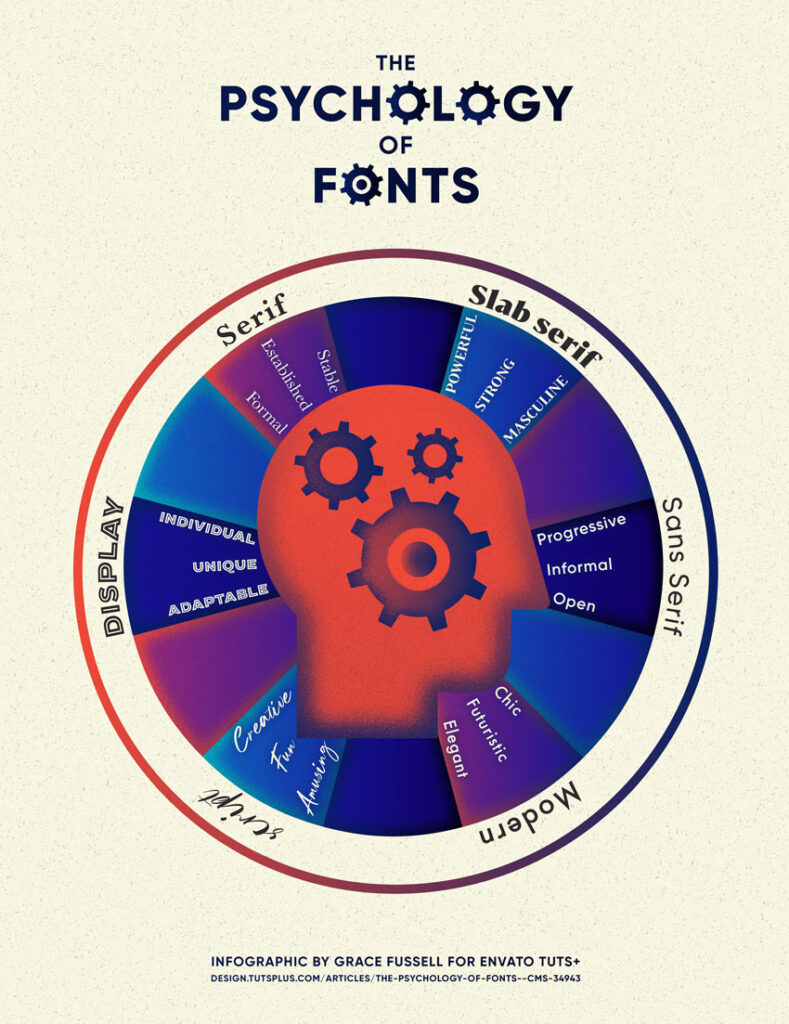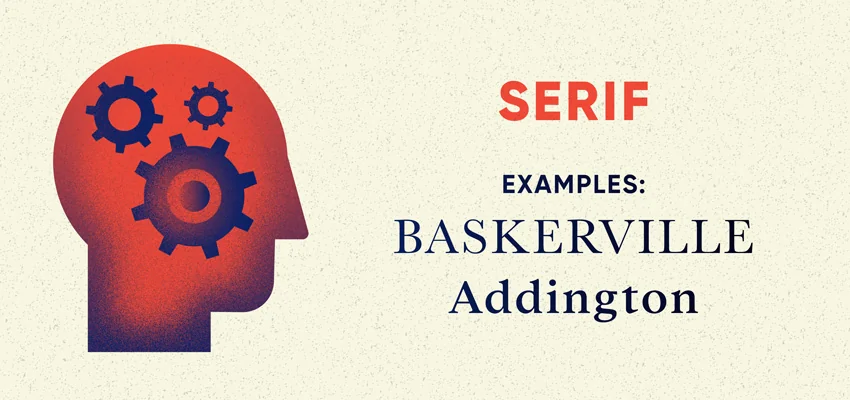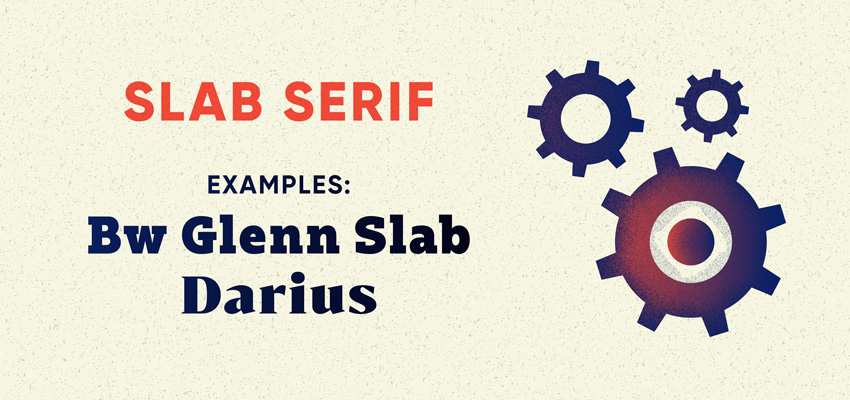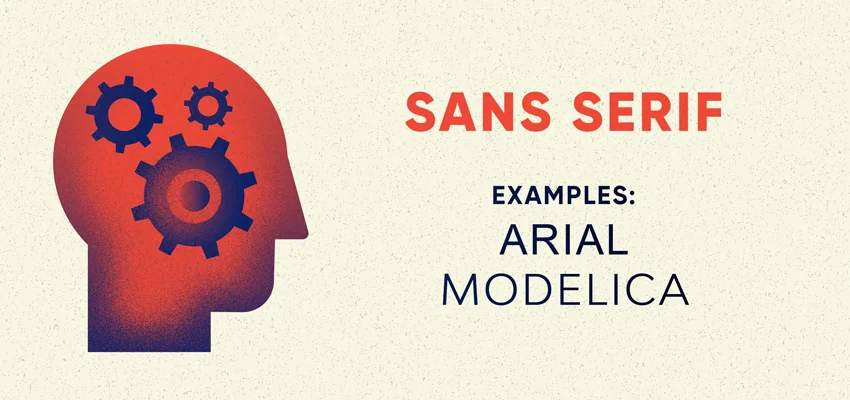
The psychology of fonts: How to choose fonts that evoke emotion
If you want to create designs that connect, here's how to use the psychology of fonts to evoke emotion through your work.
Font psychology
Designers have used powerful fonts to give designs a certain mood and feel for decades, but the power of font psychology to shape individuals’ emotional responses to a brand or logo has only been fully realized in recent years. Fonts that provoke a psychological reaction can be used to make a brand feel more trustworthy, friendly, or aspirational, with designers often turning to emotional fonts to give brand identities a powerful psychological impact.
Here, discover how to apply the psychology of fonts in logos, as well as in branding and design more broadly, using psychologically powerful fonts to shape the reactions of your audience.
From advertising fonts able to convince customers to part with their cash to unique and different fonts that help to give brands a stand-apart identity, this is your ultimate guide to understanding and applying the psychology of fonts.
What is the psychology of fonts?
Images are not simply colors and shapes on a page, or at least not for humans.
Human beings have an innate instinct to anthropomorphize non-human entities, applying human characteristics and emotions to things that are distinctly non-human – such as logos, for example.
Because human beings respond to visual culture in an emotional way, designers can manipulate the psychological responses of their viewers by making informed choices about the features of a design, such as colors and fonts. Applying the psychology of fonts in marketing is starting to become an important field of research and practice in branding and advertising.
Although this was once the preserve of large corporations, now smaller businesses are also recognising the value of applying the psychology of fonts in marketing and brand design. Different fonts have been proven to have astonishing effects on human psychology, with some powerful fonts even able to alter the taste of food or make people angry to the point of social revolution. It’s no surprise, then, that brands are starting to hire designers with a savvy knack for understanding the psychology of fonts and finding a use for emotional fonts.
For designers and businesses, an understanding of typography psychology is key to shaping both how memorable a brand is and how customers perceive it.
infographic of psychology of fonts
Because human beings are more engaged with visual content than written content (a phenomenon termed the Picture Superiority Effect by psychologists), the appearance of the text (i.e. the font) on a brand’s logo, advertising, and other output is more important in determining brand perception and brand memorability than the written content.
Not only is the appearance of text an important consideration for brands, but the appearance of different fonts can also have psychological effects on the viewer. By changing the style of font, choosing a more emotional font or a powerful font, a designer can make the viewer feel and respond differently towards a brand.
For example, a bank that wants to communicate a sense of stability and heritage to its customers might opt for a traditional serif font, while a tech start-up might choose a futuristic sans serif font, to encourage customers to perceive them as innovative and forward-thinking.
A psychological approach can also be taken toward other design elements, such as color. Savvy designers can combine multiple psychological effects by choosing particular fonts and colors, resulting in a psychologically engineered combination of design elements that communicates one or multiple emotional moods.
demo of logo with different fonts
Although the psychology of fonts is most keenly applied in the world of branding, designers working with any form of text should know a little about how font choice affects the mood and perception of viewers.
Typesetting a book? A transitional serif font like Baskerville will help readers feel that the text has more authority and intellect.
Designing a wedding invitation? The right script font can simultaneously communicate romance, fun, and tradition.
Below, discover the six major different font groups, their psychological associations, and examples of how the psychology of fonts is used in brand design.
1. Serifs: Trustworthy fonts
serif fonts
Psychological Associations of Serif Fonts: Stability, Tradition, Intellect, and Formality
Let’s talk about the formal fonts: the serif typefaces. Until the 19th century, books and pamphlets were set in serif type – a style inherited from early Roman and, later, Blackletter typefaces. The first sans serif typeface appeared in print in 1816, but serifs still remained widely popular throughout the late 19th century and into the early 20th century.
Because of this heritage, these formal fonts instantly evoke a sense of establishment and tradition, an association that is carried through into the branding and marketing of law firms, banks, and newspapers. It’s a favorite font style in publishing, with most books still set in serif type, helping to communicate a mood of intellect and authority to readers.
Addington serif font
Addington serif typeface
The psychology of fonts in a serif style stems from their history. Because we are used to seeing serif fonts as symbols of heritage (on historical artifacts and prints), intellect (in books and academic papers), and formality (on fancy invitations and high-end restaurant menus), we perceive serif fonts as trustworthy and dependable. In other words, we know where they’ve been and that they are often the defining, powerful font style of long-established and respected institutions, such as universities and banks.
Aside from colleges and financial institutions, many of which have been using serif typefaces for decades or centuries, other businesses looking to appear equally trustworthy and established can use a serif font to assert this in their branding. Law firms, news channels, and luxury fashion brands often use serif fonts in their branding and communications to capitalize on the dependability association. Serifs are trustworthy fonts without a doubt.
Examples in Logo Design: HSBC, Wikipedia, TIME, CBS News, Gap, Dior, Rolex, Vogue, Tiffany & Co
Fonts to Try: Baskerville, Addington, Garamond, Caslon
2. Slab Serifs: Powerful fonts
slab serif psychology
Psychological Associations of Slab Serif Fonts: Enduring, Strong, Powerful, and Masculine
Slab serif fonts are chunkier, bolder interpretations of the serif-type style. Usually thicker along both the stem and serifs of letterforms, they inherit some of the traits of serif fonts, such as stability and tradition, but are also bolder and more distinctive.
Slab serif fonts lack the delicacy of serif fonts, making them feel a little brash and macho. Electronics companies and car manufacturers often use slab serifs to communicate a sense of power and masculinity in their branding.
Detroit, a slab serif font family
In the wrong context, a slab serif could feel confrontational, but when used in the branding of companies that have a manufacturing focus, they feel strong, capable, and enduring. A slab serif is an assertive and powerful font, telling viewers that this is a practical, hands-on business that also has historical, dependable roots.
Examples in Logo Design: Sony, Honda, Volvo, IBM, Coach
Fonts to Try: Rockwell, Detroit, Darius, BW Glenn Slab
3. Sans Serifs: Friendly fonts
sans serif psychology
Psychological Associations of Sans Serif Fonts: Progressive, Informal, Open, and Friendly
Referring to a wide group of fonts that lack serifs (the small strokes attached to the ends of letterforms on serif fonts), sans serif typefaces were formally invented in the early 19th century but only became popular much later, during the 20th century, when the modernist movement championed a break away from traditional design forms, including serif type styles.
Sans serif fonts are progressive and emotional fonts, historically popular as advertising fonts and cool fonts for posters. These friendly fonts culturally represent a break with tradition, giving these emotional fonts a progressive personality.
In recent decades, these simple and different fonts have defined the branding of a wide number of tech companies and social media sites, helping users to feel that these products are forward-thinking – the opposite of the sometimes stuffy, change-resistant reputation of serif styles.
The psychological association with progression and modernity also extends to brands that want to appear innovative and adventurous, such as Jeep, Land Rover, and National Geographic.
Bergen Text Sans Serif Font
Unencumbered with the fuss of decorative serifs, sans serifs appear as open and friendly fonts, making them a favorite with businesses that want to appear approachable and good value. Budget airlines, logistics companies, and high-street retailers often opt for sans-serif fonts to make their customers feel welcome and comfortable.
Examples in Logo Design: Nike, Apple, Facebook, Microsoft, Dropbox, Spotify, FedEx, National Geographic
Fonts to Try: Arial, Modelica, Open Sans
4. Modern Sans Serifs: Chic fonts
modern serif psychology
Psychological Associations of Modern Sans Serif Fonts: Chic, Futuristic, and Elegant
A sub-family of sans serif fonts, modern sans serifs are sans serif fonts in the tradition of early- to mid-20th-century modernist type styles. Helvetica, Futura, and Avenir are some of the oldest and best-known modern fonts, but the popularity of the style has endured, with a huge range of contemporary geometric sans serifs to choose from.
These chic fonts were often used as advertising fonts and associated with the boom in modernist design during the 1950s. They’re a popular choice amongst design-focused businesses and brands, such as architecture practices, furniture retailers, and fashion brands. In fashion in particular, a clear split down the line emerges between brands who opt for the lofty, luxurious elegance of serif fonts, such as Dior and Valentino, and those who prefer the chic functionality of sans serifs, including Chanel and Calvin Klein. The latter group, it seems, would rather appear more futuristic and minimalist in both brand and business.
George Round, a rounded geometric sans serif
George Round, a rounded geometric sans-serif
Geometric, elegant fonts often also feature rounded letterforms, giving them an open, functional appearance. These chic fonts can be exceptionally rounded, such as George Round, giving the viewer a sense of playfulness and naivety and making them a popular choice for children’s brands, as well as travel and entertainment brands targeting the older millennial market.
Examples in Logo Design: Chanel, Celine, Calvin Klein, Burberry, Netflix, Google, Airbnb
Fonts to try: Futura, George Round, Okana
5. Scripts: Fun fonts
script psychology
Psychological Associations of Script Fonts: Creative, Amusing, Fun, Childlike, and Romantic
Script and fun handwriting fonts can lean towards formality or naivety, depending on the style and context. That’s the beauty of typography psychology. Calligraphy fonts, inspired by the traditional method of handwriting using ink pens, feel more formal and sophisticated and are often adopted by luxury brands or high-end restaurants in their branding and menus. Many contemporary script fonts are more informal and eclectic, mimicking the diversity of modern handwriting styles and making them fun fonts.
These eclectic and different fun fonts are evocative of handwriting and doodling, connecting them with creativity and eccentricity. Given their unique and quirky form, these emotional fonts are rarely somber. Script fonts also remind the viewer of youth and first romances, making them a popular choice for Valentine’s cards and wedding invitations.
The association with youth and amusement also makes fun handwriting fonts popular for candy packaging and food products aimed at children, such as cereal and soft drinks, as well as cool fonts for posters and advertising fonts.
Moscato Script
In terms of the psychology of fonts in marketing, script fonts have a particular history. In some cases, these emotional fonts have a retro personality, as these types of styles (sometimes referred to as ‘diner’ fonts) enjoyed spells of popularity in advertising and branding during the 1950s. Brands like Ray-Ban and Coca-Cola have chosen to retain the original script form of their logos­ – reinforcing a connection between the past and present and tapping into a nostalgic marketing mood.
Examples in Logo Design: Disney, Mailchimp, Ray-Ban, Coca-Cola, Reese’s, Pinterest, Virgin, Kellogg’s, Budweiser, Cartier
Fonts to Try: Sinisuka
6. Display: Independent fonts
Psychological Associations of Display Fonts: Novel, Trail-Blazing, Unique, and Adaptable
If you encounter a different font you can’t quite place in a neat category, it’s likely it would be classified as a display or novelty font. Some of these types of powerful fonts create a sort of pictographic representation, blending a graphic image with text (see the Tour de France and NASA logo designs), while others are simply heavily stylized. Display fonts are largely meant for that purpose alone, meaning they can work wonderfully as part of headlines or logo designs but rarely as standard text intended for longer reading.
Designers and brands usually opt for display fonts to give an impression of individuality and difference, with the practice of the psychology of fonts for logos often featuring display styles. Many of the logo examples below use completely customized fonts or illustrative type, using the psychology of fonts in logos to create a unique effect that is unlikely to be seen anywhere else. For playful brands like Lego and Oreo, logos set in display fonts heighten the novelty of the product, making it feel more exciting and interesting.
Cheese Sauce display font
Display fonts are not for the shy and retiring – by using one in your design, you are imploring viewers to ‘look at me!’ However, these unique fonts are definitely fonts that evoke emotion and can’t be ignored. So for brands looking to appear distinct from similar businesses, they can help to foster a sense of uniqueness and inspire fierce loyalty amongst their employees and customers, who feel they are buying from or working for somebody who does things a little differently to the mainstream.
Grassroots and independent organizations also often opt for display fonts in their communications, serving to mark them out as anti-conformist and trail-blazing.
Examples in Logo Design: Tour de France, Yahoo!, NASA, Lego, Subway, Oreo, Greenpeace, MTV, Warner Bros
Fonts to Try: CA Negroni, Cheese Sauce
Leverage the power of font psychology today!
Knowing a little about the psychological effects that different font styles can have on the viewer can help you make more informed design decisions, especially when it comes to creating brand identities and logo designs. An understanding of these effects will allow you to apply the principles of the psychology of fonts to marketing and the psychology of fonts in logos. Using different and powerful fonts can instantly shift the personality and psychological impact of your designs, leading to more effective branding decisions. If you’re exploring how different typefaces affect perception, a font finder might come in handy to discover the perfect font that matches the mood or emotion you want to evoke.